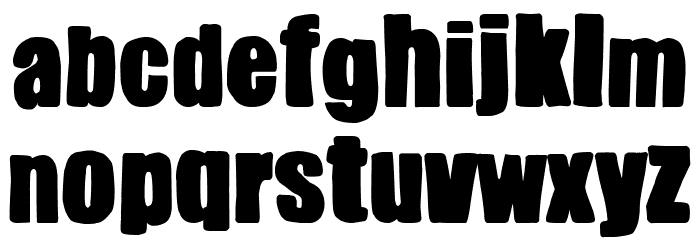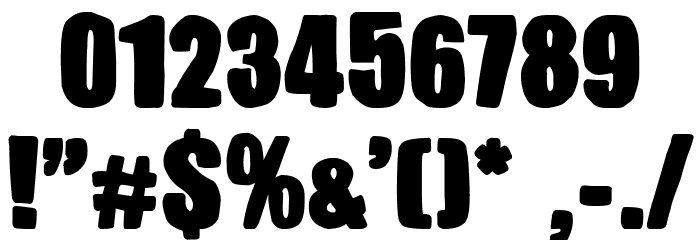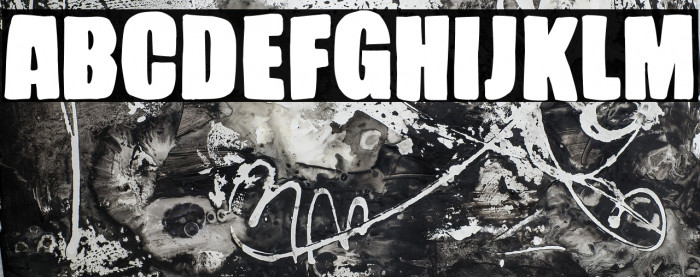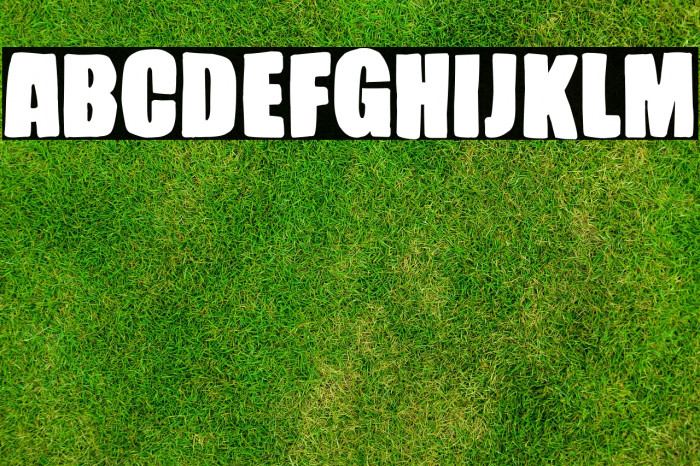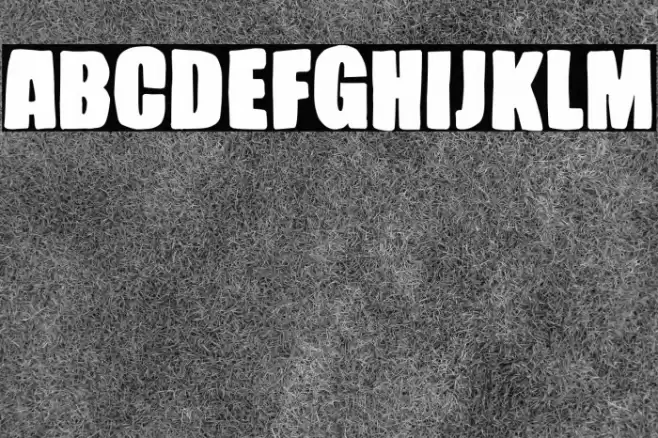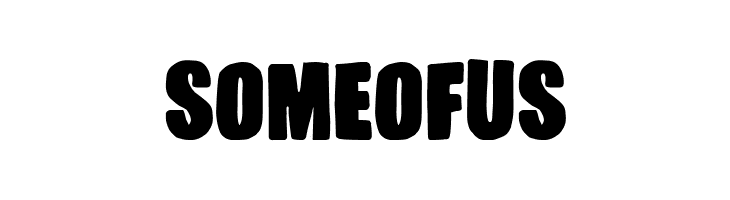
Super Impacto Font
This font features bold, heavy strokes with a strong presence, making it ideal for impactful headlines and attention-grabbing designs. The characters are uniformly thick, with rounded edges that soften the overall appearance. The uppercase and lowercase letters maintain a consistent style, ensuring readability while conveying a sense of strength and stability. The numbers and special characters are equally robust, complementing the alphabetic characters perfectly. This font's design is straightforward yet powerful, suitable for projects that require a commanding visual element.
A bold, heavy font with rounded edges, perfect for impactful headlines.
- Proposed Projects: Ideal for posters, banners, logos, and any design requiring a strong visual impact.